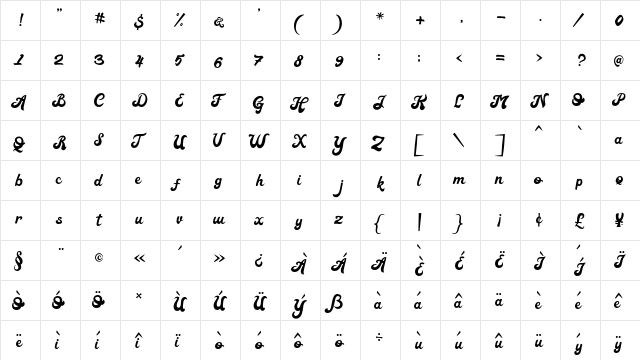
Retrovert Regular
Design Context for Retrovert Typeface
Retrovert has the warm character of retro typography — evoking diners, record sleeves, and the golden age of print advertising.
Font Pairing: Combine Retrovert with a simple slab or neutral sans — period-accurate companions reinforce the vintage feel without competing for attention.
Pro Tip: Lean into Retrovert's period character by pairing it with aged paper textures, muted colour palettes, and vintage illustration styles.